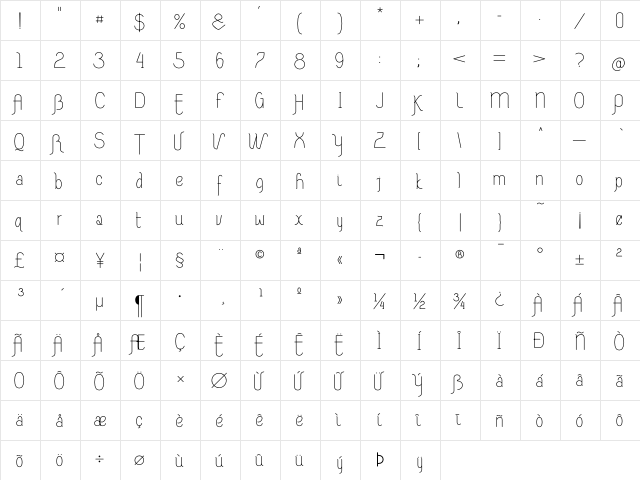
Rias Altas Ribadeo LGtipos Regular
| Designer | Imprenta A. Lage - Manuel Lage - LGF - ILG |
Design Context for Rias Altas Ribadeo LGtipos Typeface
Rias Altas Ribadeo LGtipos offers clean, dependable letterforms without strong stylistic allegiance, making it a practical choice for designers who need flexibility.